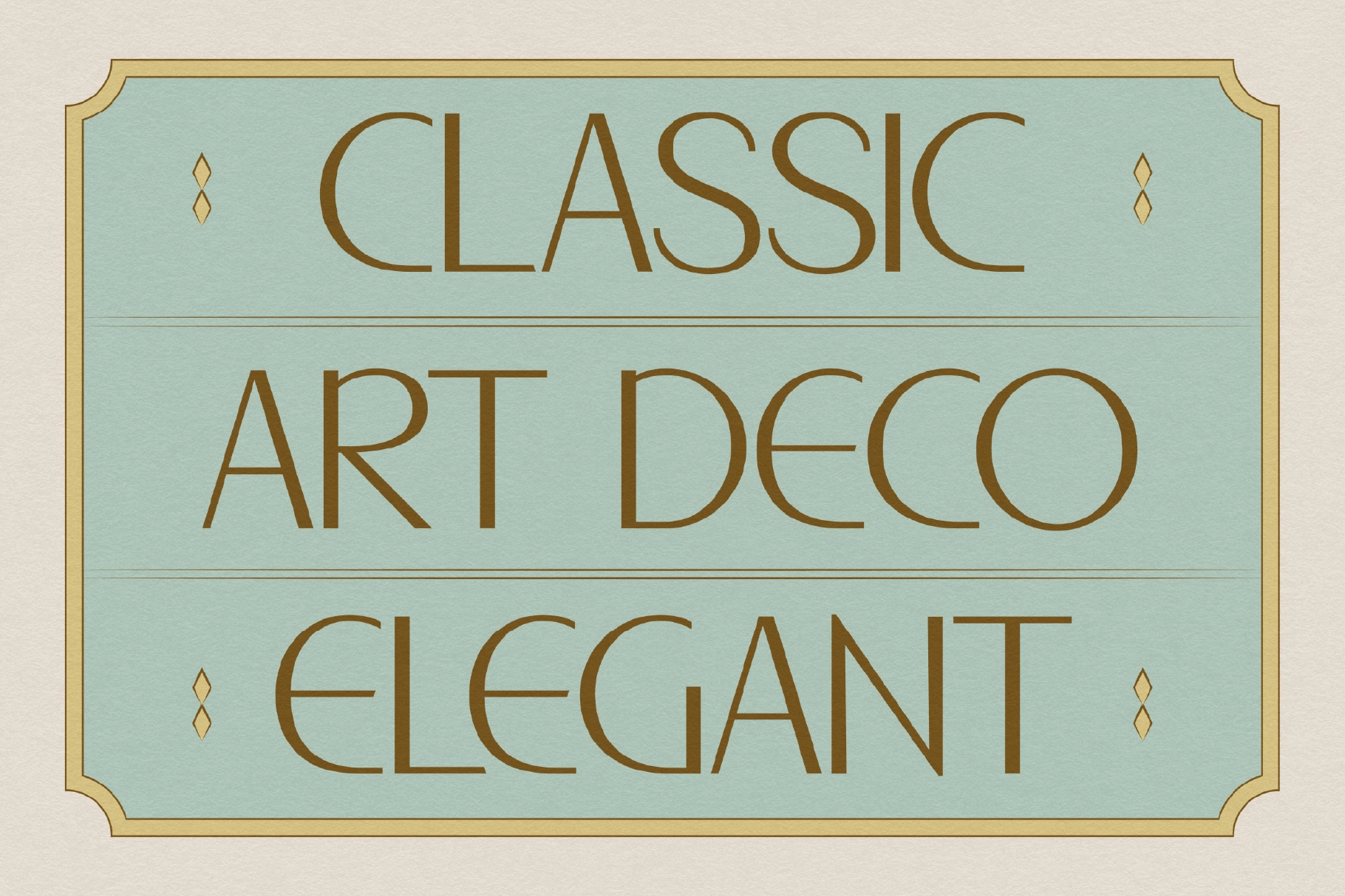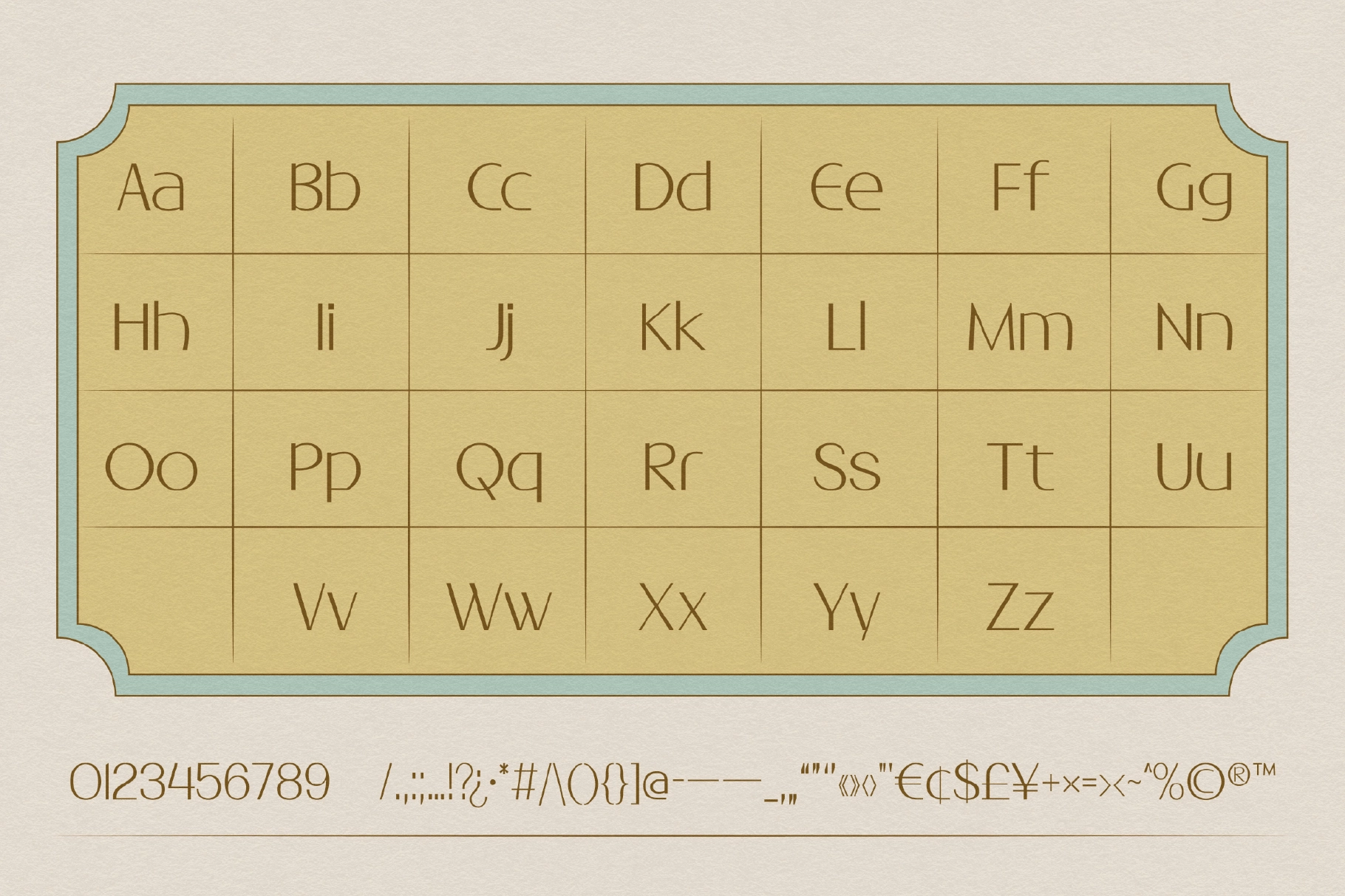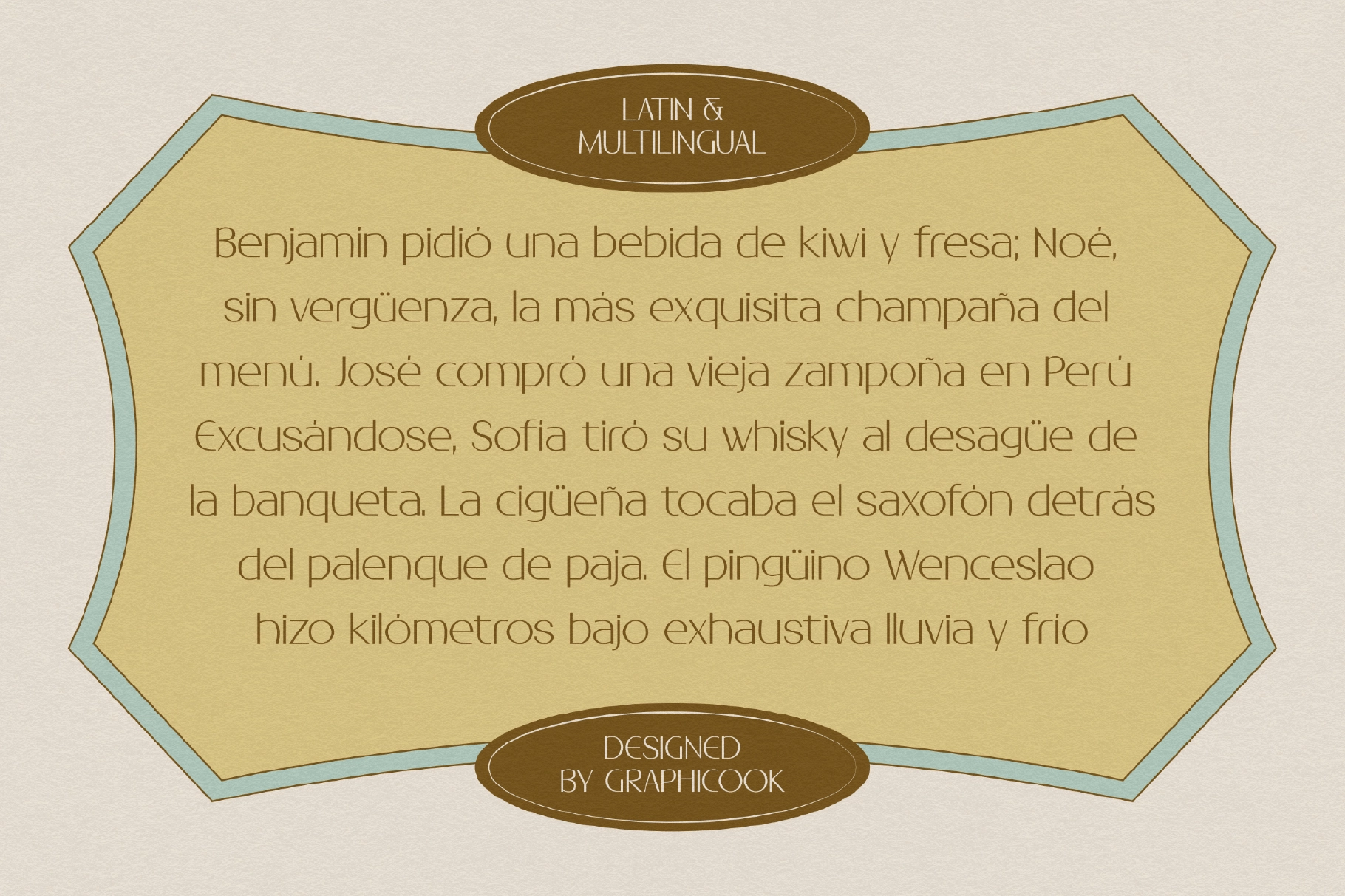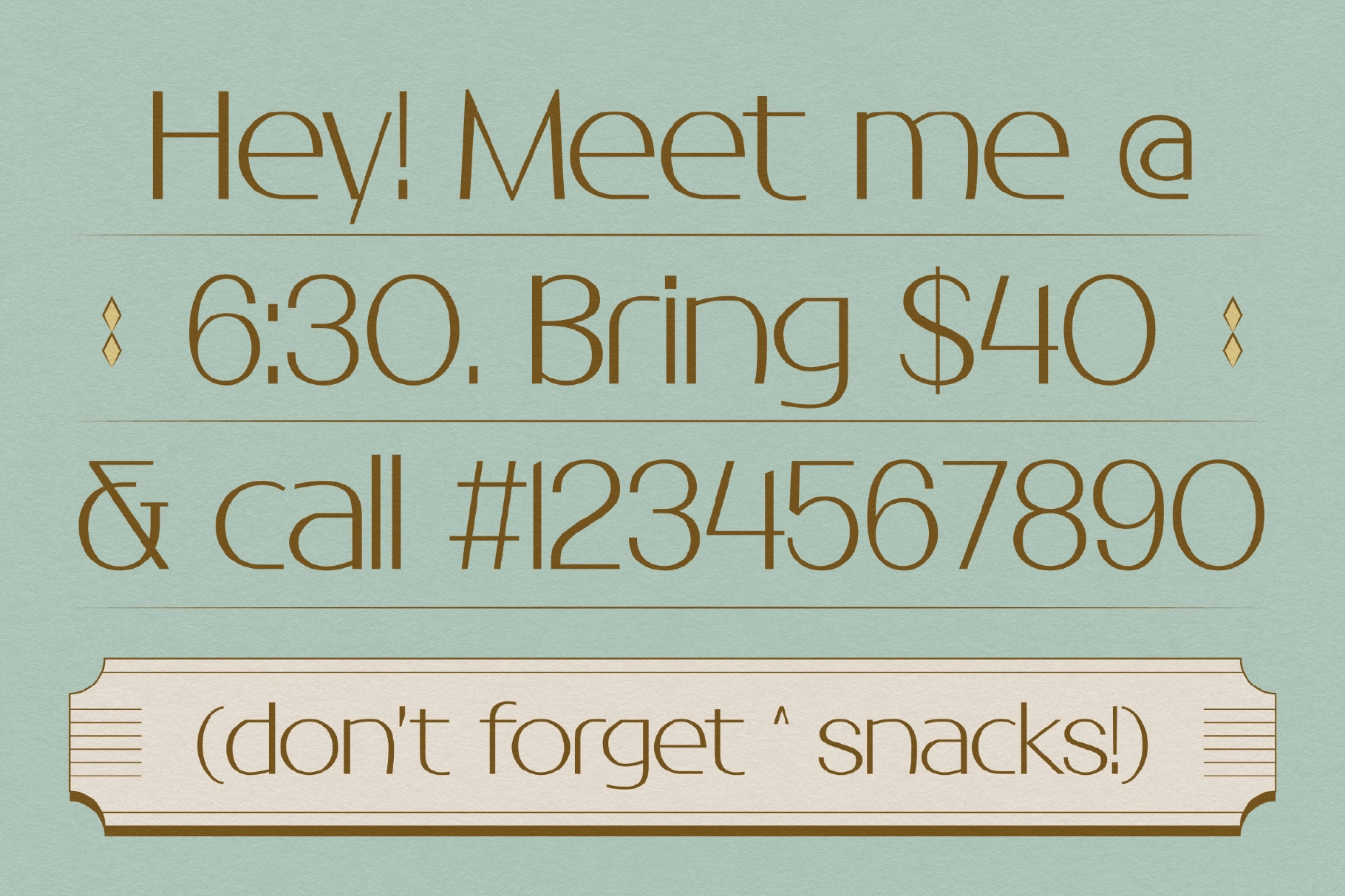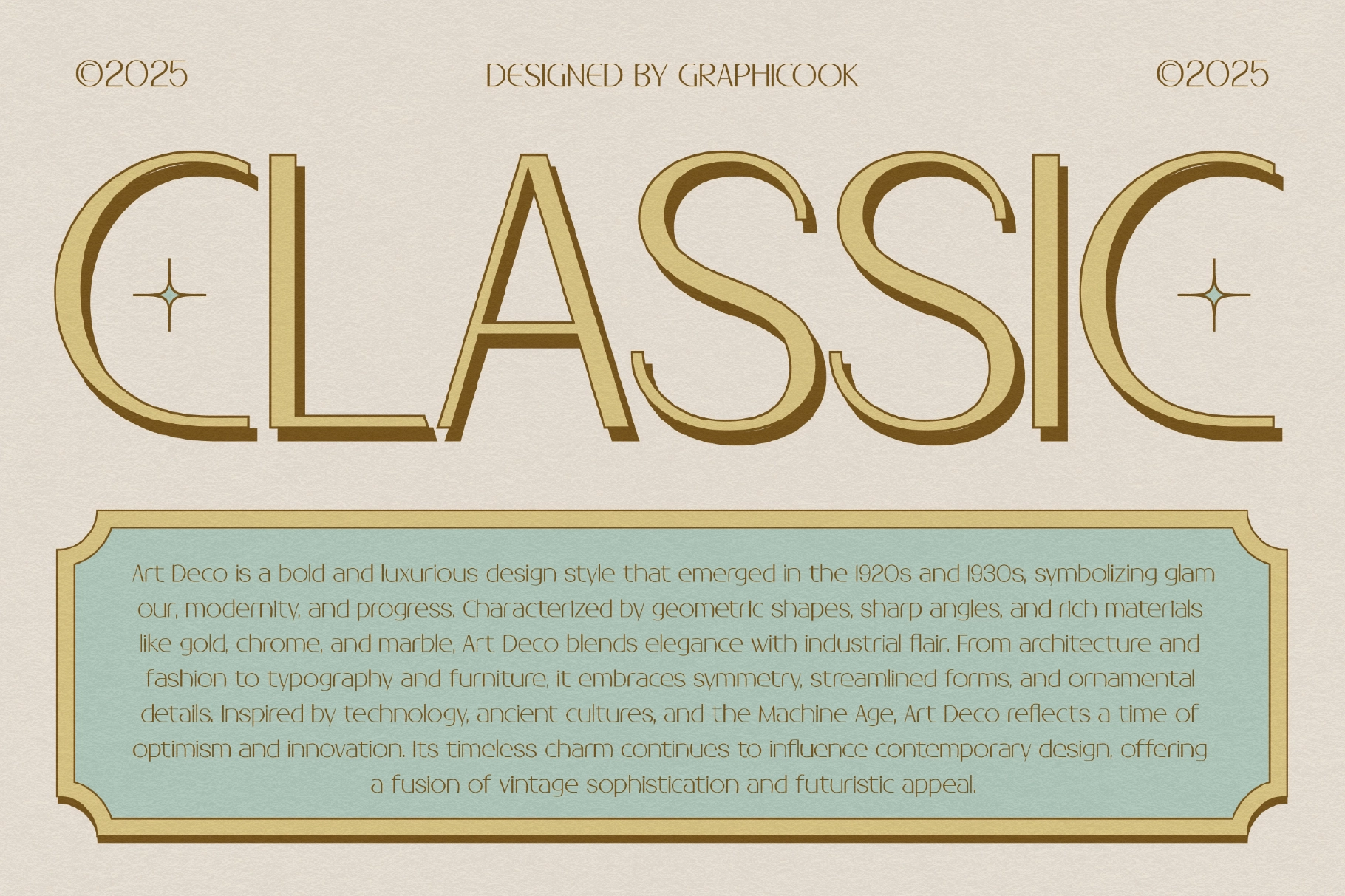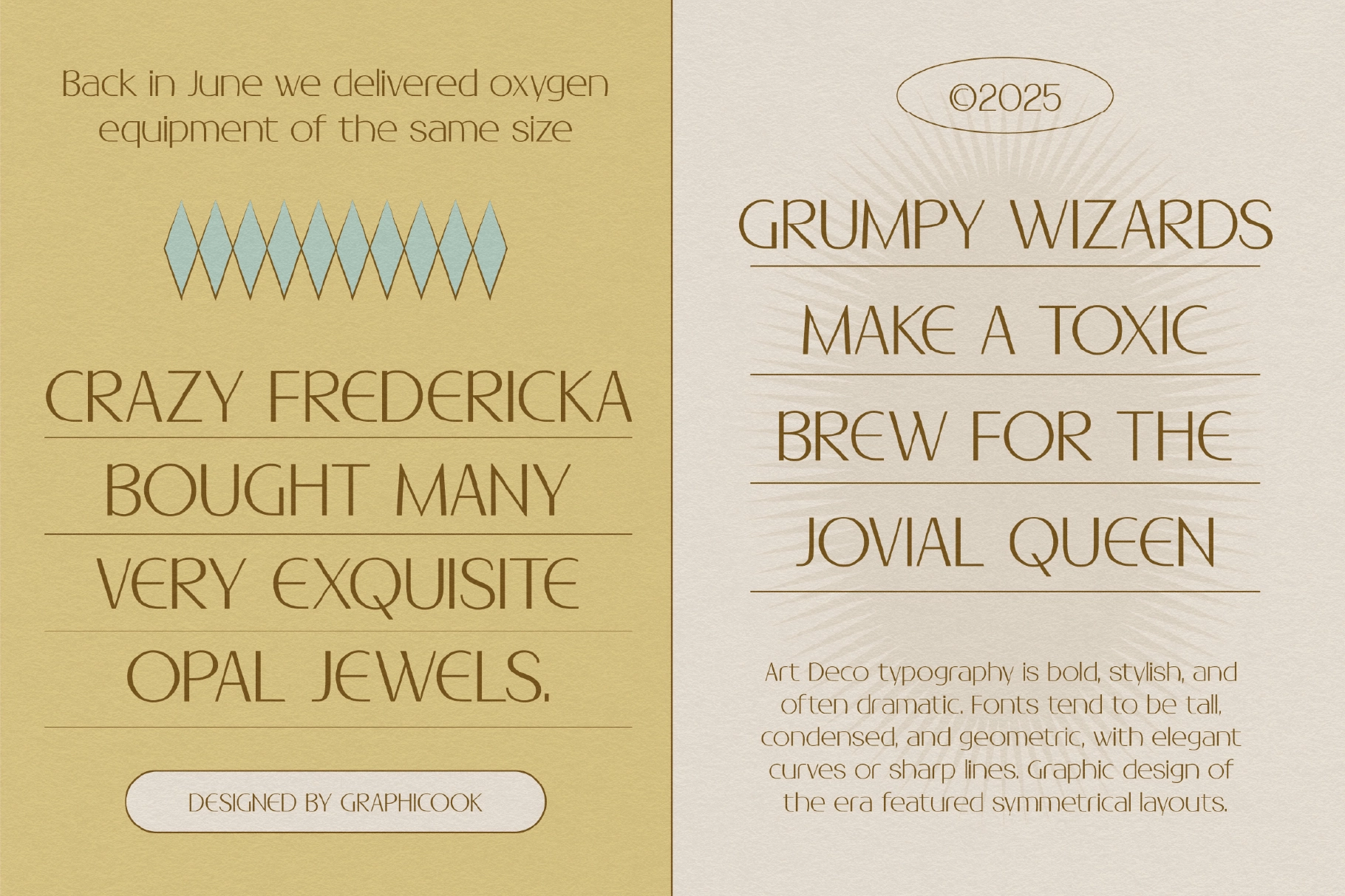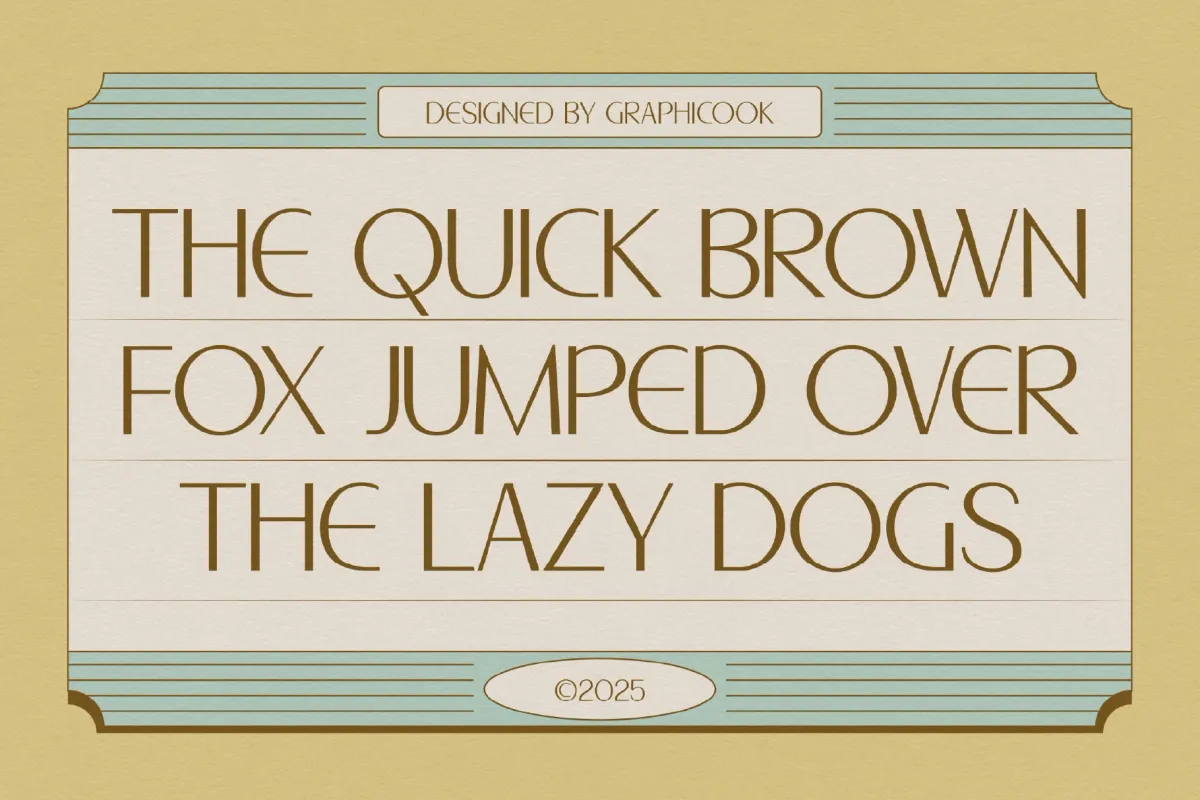
Modettra Font
Modettra
Moderttra is an Art Deco-inspired font featuring sharp angles and precise lines. It exudes elegance and is ideal for formal, professional, and high-end design projects.